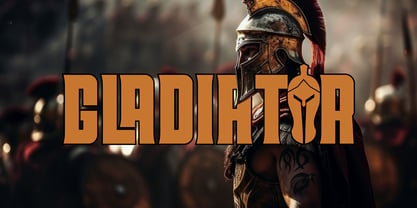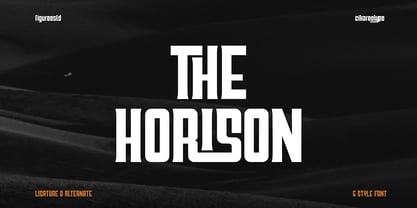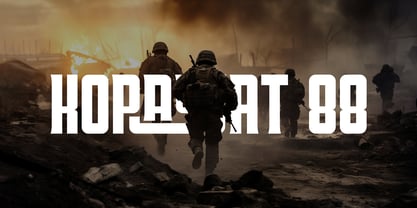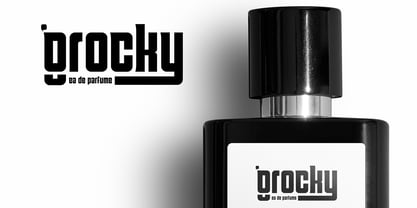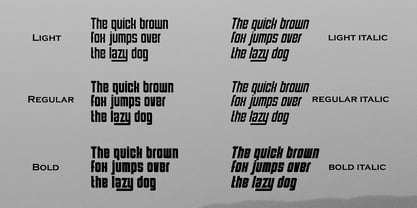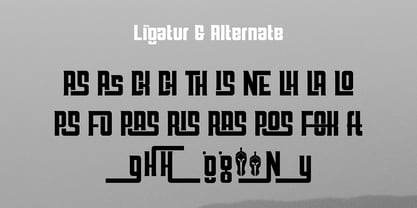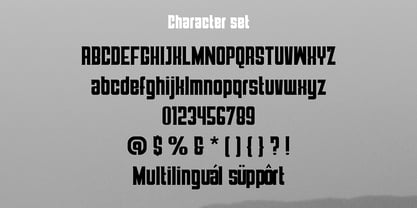
The Horison
The The Horison Font Family was designed by Sipanji and published by Sipanji21. The Horison contains 6 styles and family package options. More about this family
The Horison is a bold modern display typeface designed with strong vertical structure, sharp geometry, and powerful visual balance. Inspired by cinematic title design, industrial typography, and contemporary sports branding, this typeface delivers confidence, strength, and commanding presence in every letterform. Built with a tall and condensed proportion, The Horison maximizes impact while maintaining clarity and precision. The vertical emphasis creates a dramatic silhouette, making it highly effective for large-scale headlines, posters, and branding applications. Its clean yet distinctive shapes allow it to stand out without excessive ornamentation. One of the defining features of The Horison is its advanced ligature and alternate system. Carefully crafted ligatures enhance letter connections and improve visual rhythm, while stylistic alternates provide additional flexibility for designers who want to customize their layouts. This feature makes the typeface adaptable across multiple design moods—from minimal and professional to bold and experimental. The Horison includes six styles, allowing layered hierarchy and dynamic contrast within the same type family. Designers can combine styles for branding systems, editorial layouts, packaging design, and digital media compositions without needing additional typefaces. The geometric foundation ensures consistent spacing and strong readability, even at larger sizes. Its confident structure makes it suitable for: - Movie titles and cinematic posters - Sports branding and team identity - Corporate branding - Editorial headlines - Tech and startup branding - Gaming visuals - Music artwork - Event posters - Streetwear graphics - Luxury branding The typeface carries a futuristic undertone while remaining grounded in modern design principles. It works exceptionally well in monochrome compositions, bold color palettes, metallic gradients, and dark dramatic backgrounds. The Horison is not a casual typeface. It is designed to project authority, ambition, and forward-thinking identity. Its strong presence makes it perfect for brands that want to appear innovative, competitive, and impactful. Each character is carefully refined to ensure smooth curves, sharp terminals, and consistent stroke weight. The alternates and ligatures expand creative possibilities while preserving structural integrity. Whether used for large headlines, logo development, or cinematic branding, The Horison delivers a commanding typographic voice. It is a versatile display family built for designers who demand strength, clarity, and modern sophistication. If you are searching for a bold modern display typeface with multiple styles, advanced ligatures, and strong vertical energy, The Horison provides the tools to elevate your design with confidence and impact.